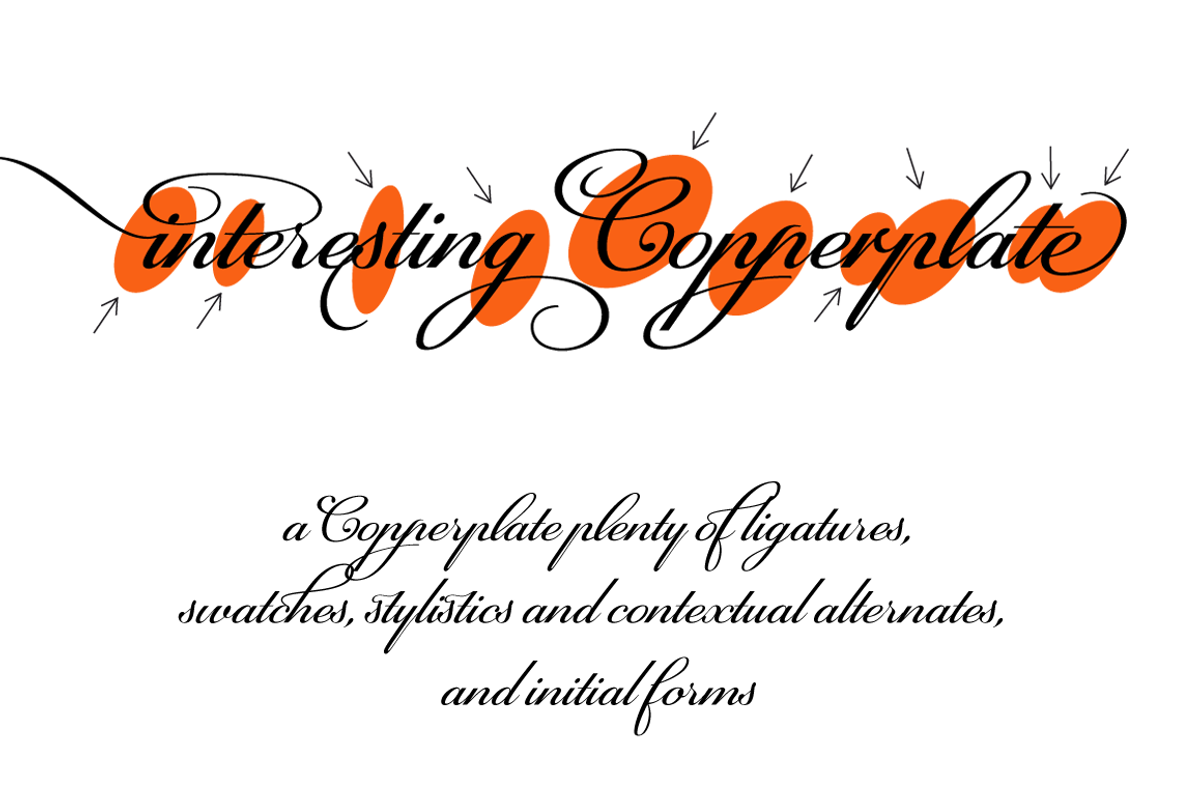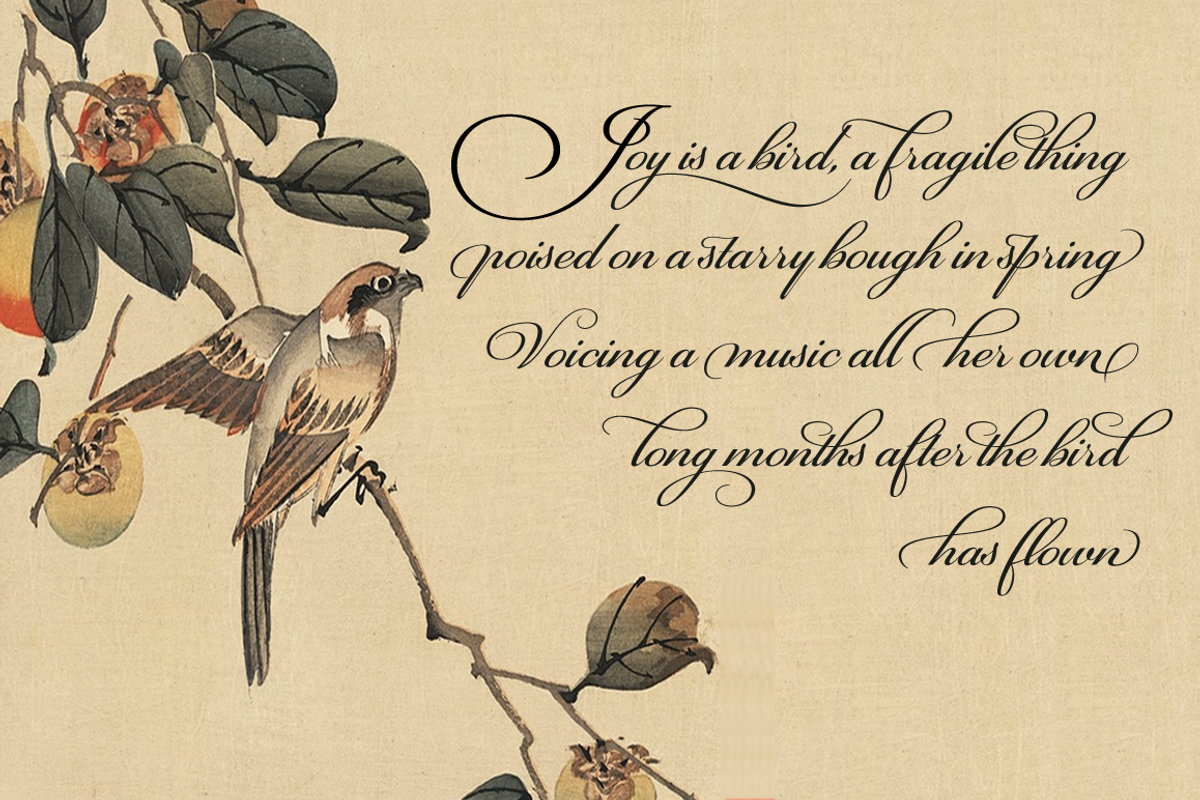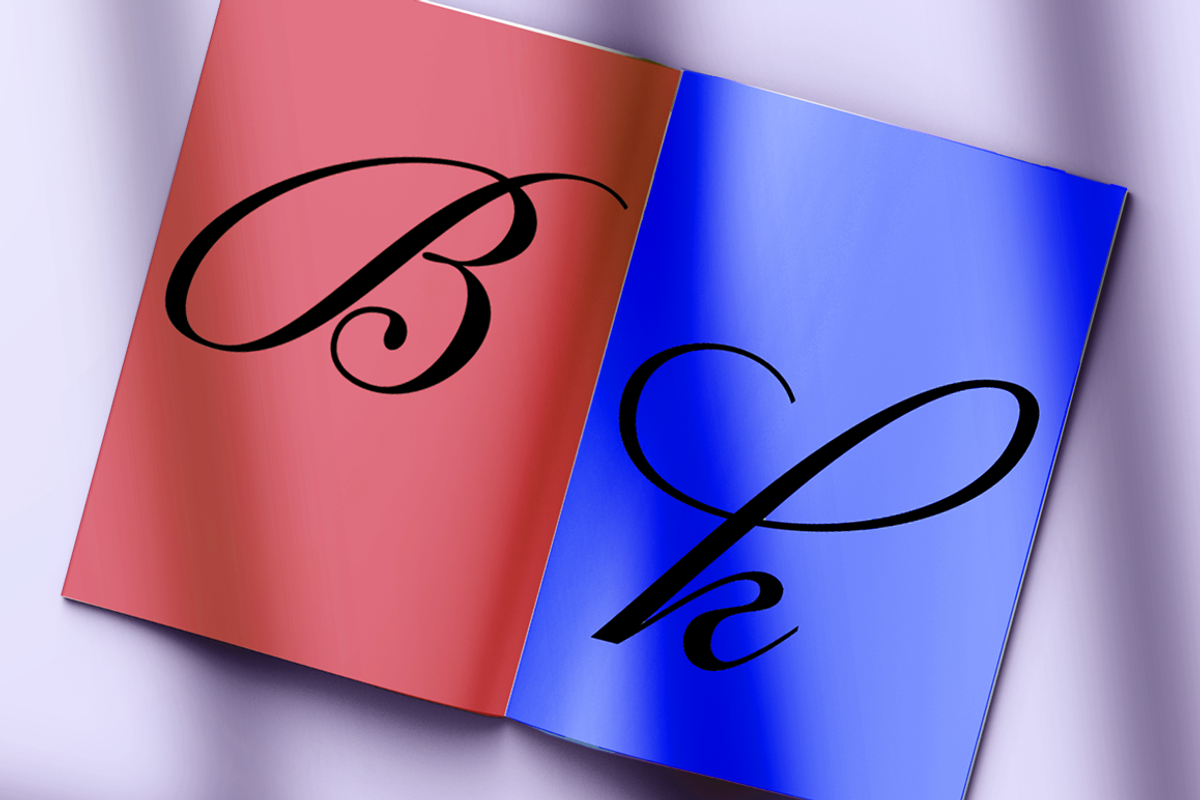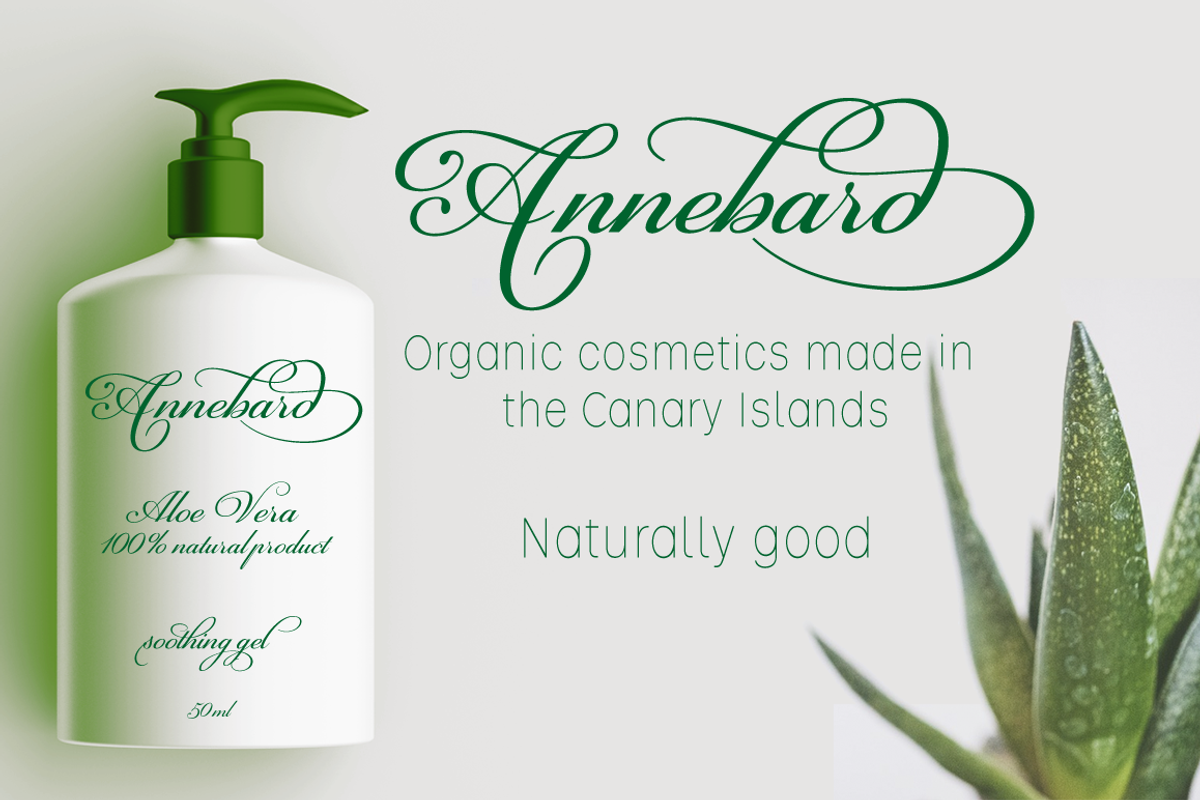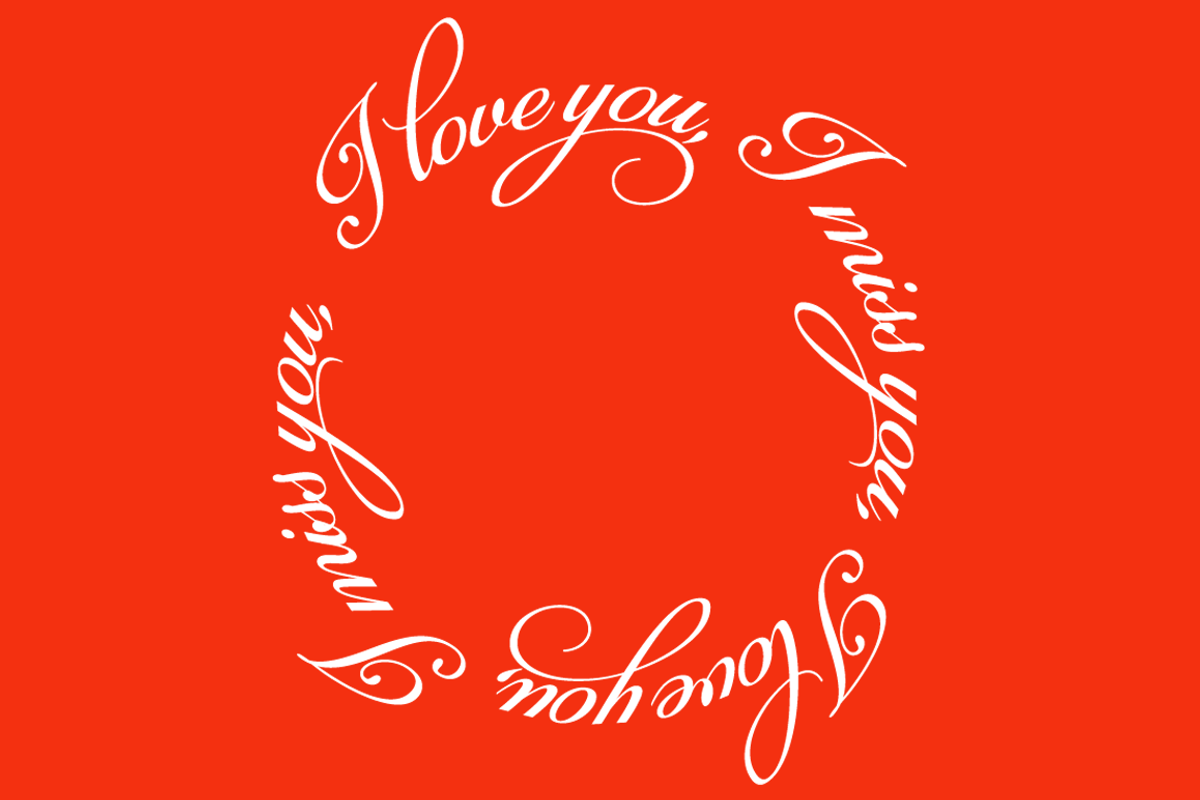
Castagna
Design: Carine de Wandeleer
Publisher: Eurotypo
Castagna is a contemporary calligraphic font with classical roots. It is carefully designed, with a special emphasis on the connection of the letters, with high ascenders to give rise to the ornaments of the different letters. There is a special search for high readability. Castagna includes a wide selection of stylistic sets, contextual and stylistic alternates, initial forms, swashes, and ligatures to preserve the qualities of handwriting, in order to accommodate various design aesthetics.